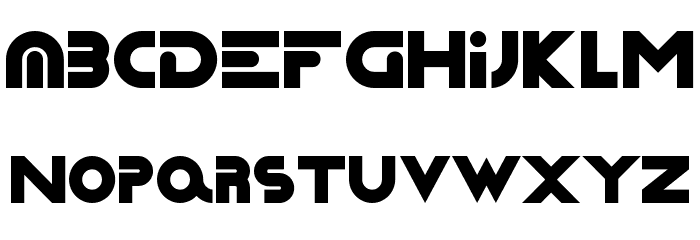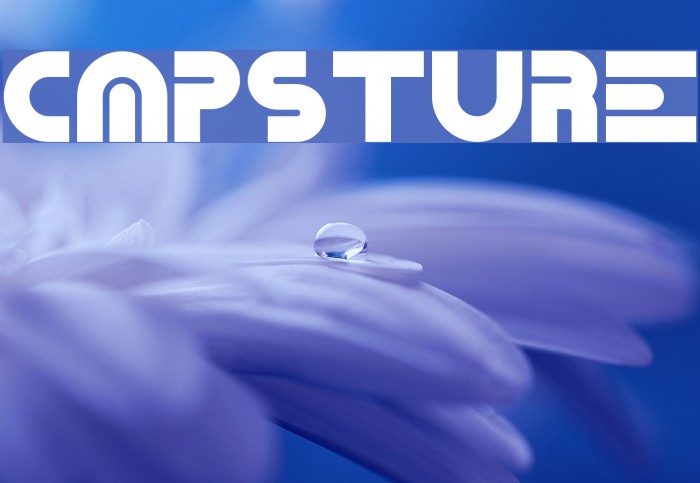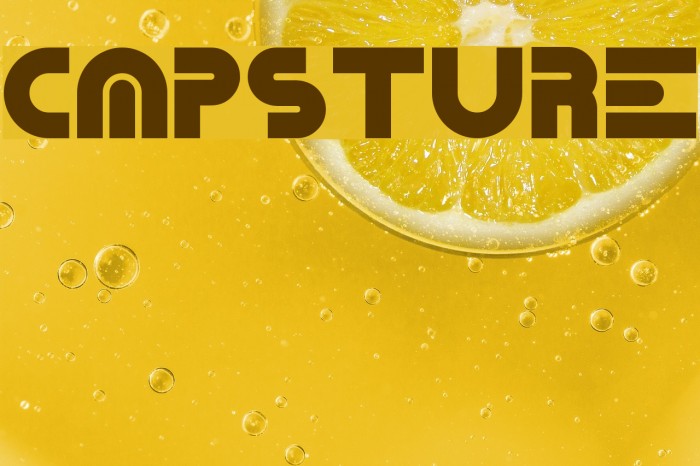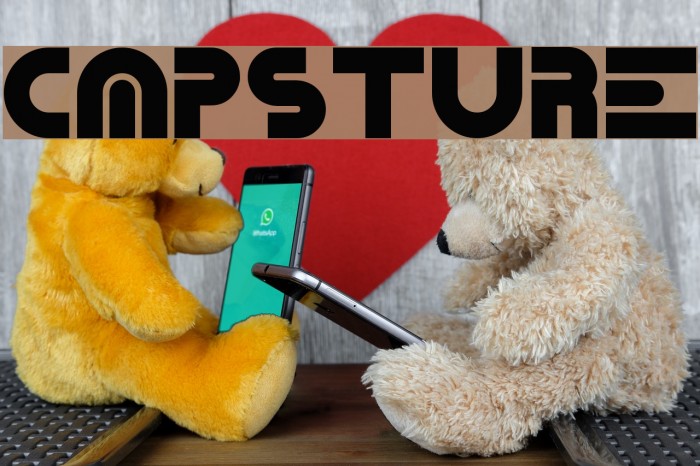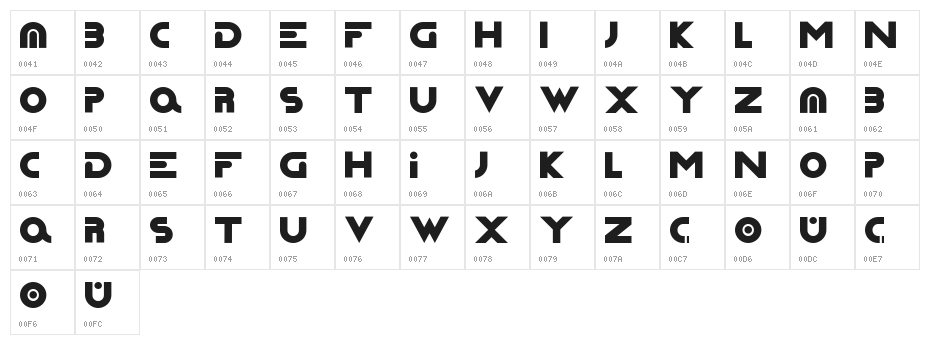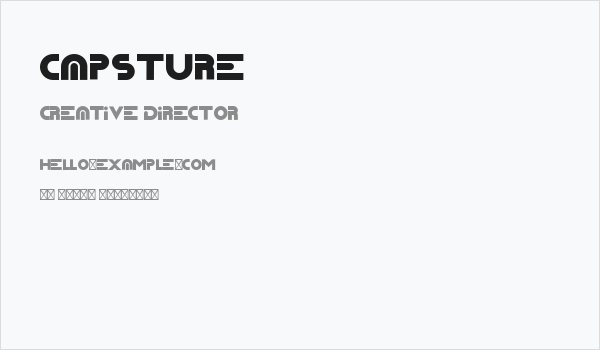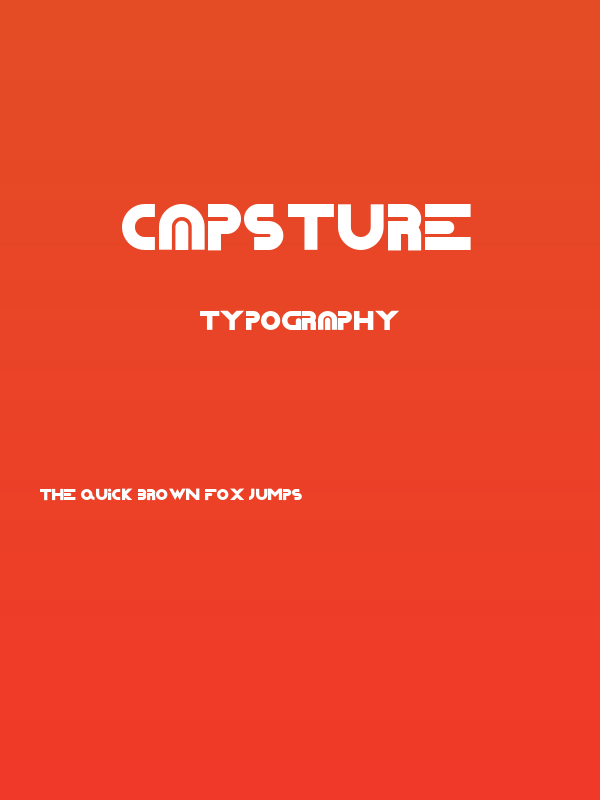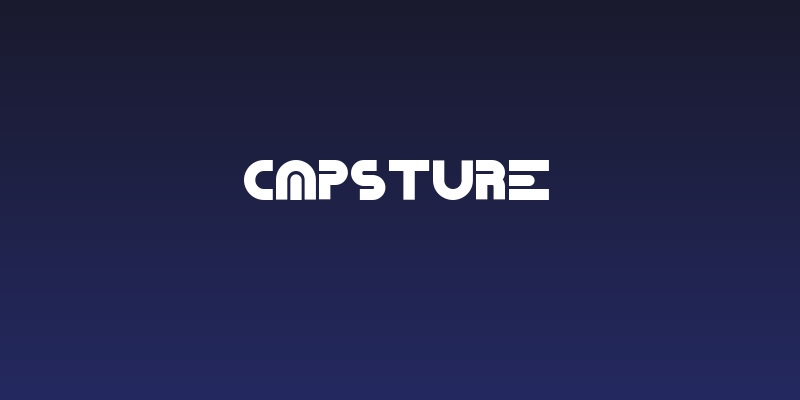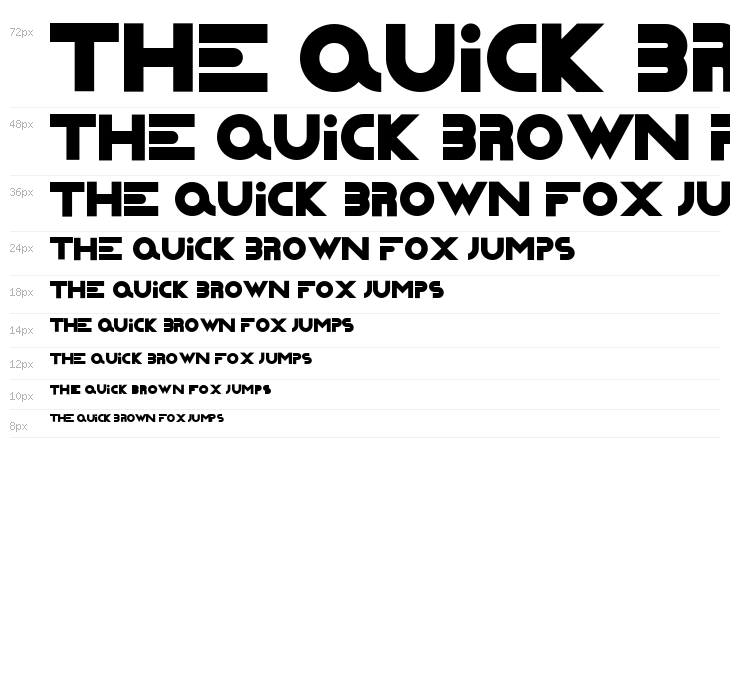
Capsture Font
This font features a bold and geometric design with a futuristic flair. The characters are constructed with thick, uniform strokes, creating a strong visual impact. The rounded edges and consistent line thickness give it a modern and sleek appearance. The uppercase letters are particularly striking, with a unique blend of curves and straight lines that enhance its contemporary style. This font is highly legible, making it suitable for a variety of design applications where a bold statement is needed.
A bold, geometric font with a futuristic and modern design.
- Proposed Projects: Ideal for branding, posters, headlines, and digital media where a strong, modern aesthetic is desired.